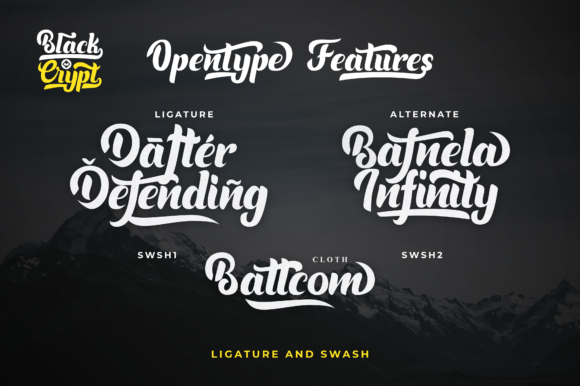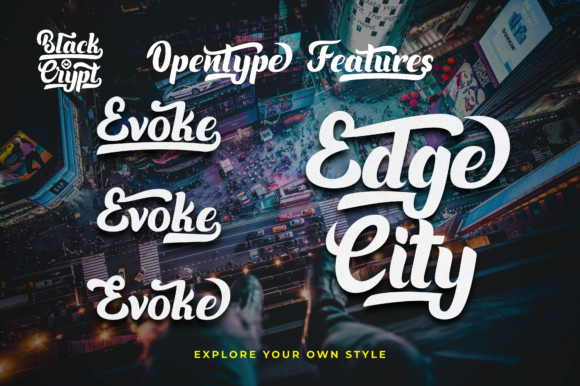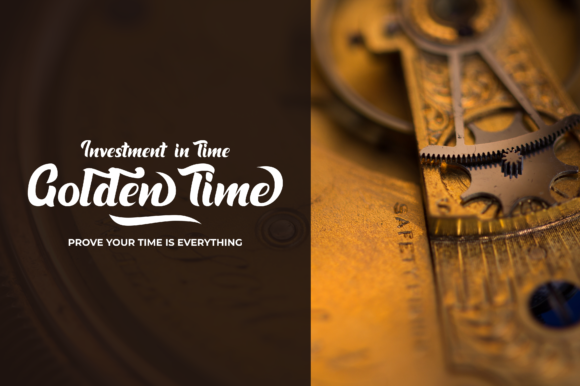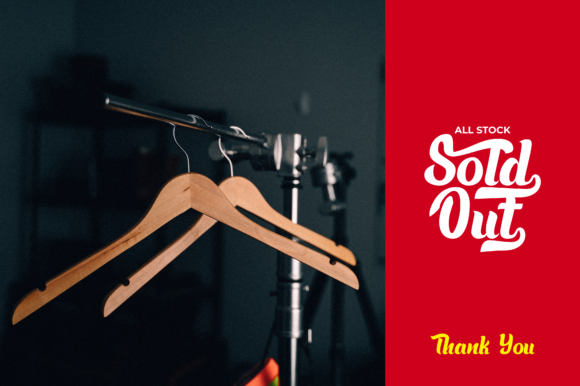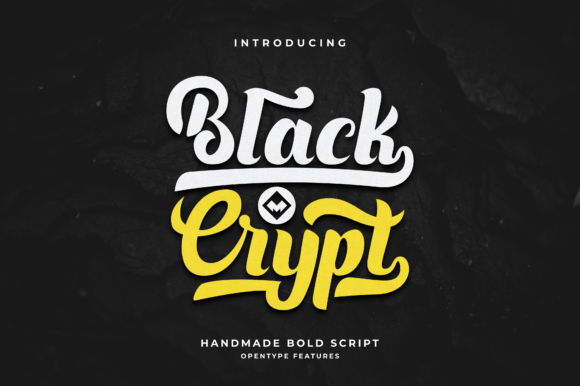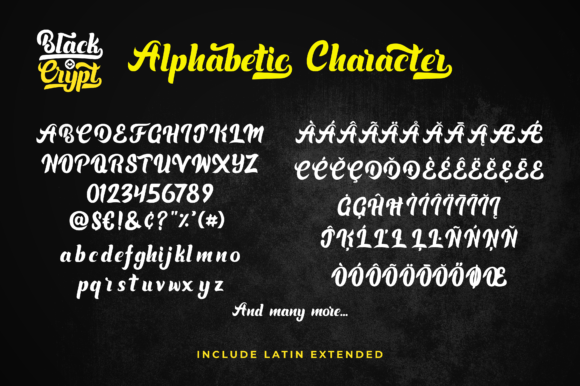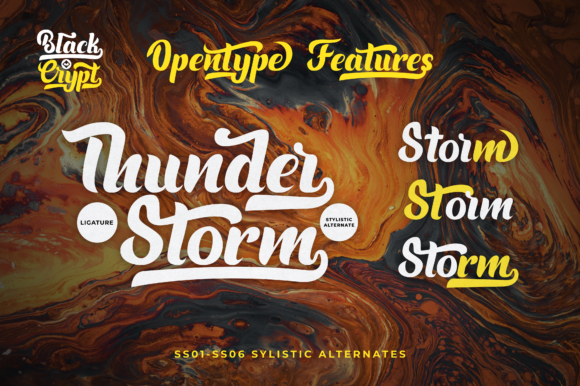
Introducing Blackcrypt Font: The Ultimate Choice for Designers and Crafters
Are you tired of using the same old fonts in your design projects? Do you want to add a touch of personality and whimsy to your creations? Look no further than Blackcrypt Font, a fun and cute handwritten font with a bold feel that’s sure to take your designs to the next level.
What is Blackcrypt Font?
Blackcrypt Font is a unique and eye-catching font that’s perfect for designers and crafters who want to add a powerful vibe to their projects. This handwritten font features bold and expressive lettering that’s sure to grab attention. Whether you’re working on a logo, branding project, or social media graphics, Blackcrypt Font is the perfect choice.
Key Features of Blackcrypt Font
- Handwritten with love: Blackcrypt Font is a carefully crafted handwritten font that’s full of personality and charm.
- Bold and expressive: This font features bold and expressive lettering that’s sure to make a statement.
- Fun and cute: Blackcrypt Font is the perfect choice for designers and crafters who want to add a touch of whimsy and fun to their projects.
- High-quality design: This font is designed with high-quality and precision, ensuring that it looks great in any design project.
Why Choose Blackcrypt Font?
So why choose Blackcrypt Font for your design projects? Here are just a few reasons:
- Stand out from the crowd: With Blackcrypt Font, you can create designs that stand out from the crowd and grab attention.
- Add personality to your designs: This font is full of personality and charm, making it perfect for designers who want to add a touch of whimsy to their projects.
- Perfect for a variety of projects: Blackcrypt Font is versatile and can be used in a variety of design projects, from logos and branding to social media graphics and more.
- Easily readable: Despite its bold and expressive nature, Blackcrypt Font is easily readable, making it perfect for use in a variety of design projects.
How to Use Blackcrypt Font
Using Blackcrypt Font in your design projects is easy. Here are a few tips:
- Pair it with other fonts: Blackcrypt Font pairs well with other fonts, so feel free to get creative and experiment with different combinations.
- Use it for headings and titles: This font is perfect for use in headings and titles, where you want to make a bold statement.
- Add it to your branding: Blackcrypt Font is perfect for use in branding projects, such as logos and business cards.
Who is Blackcrypt Font for?
Blackcrypt Font is perfect for a variety of designers and crafters, including:
- Graphic designers: If you’re a graphic designer looking for a unique and eye-catching font to use in your projects, Blackcrypt Font is the perfect choice.
- Crafters: If you’re a crafter who loves to create handmade projects, such as cards and scrapbook pages, Blackcrypt Font is a great addition to your design toolkit.
- Small business owners: If you’re a small business owner looking for a font to use in your branding and marketing materials, Blackcrypt Font is a great choice.
| Font Name | Blackcrypt Font |
| Author | Saiful Maliki |
In conclusion, Blackcrypt Font is a fun and cute handwritten font with a bold feel that’s perfect for designers and crafters who want to add a powerful vibe to their projects. With its unique and eye-catching design, this font is sure to grab attention and make your designs stand out from the crowd. So why wait? Download Blackcrypt Font today and start creating amazing designs!